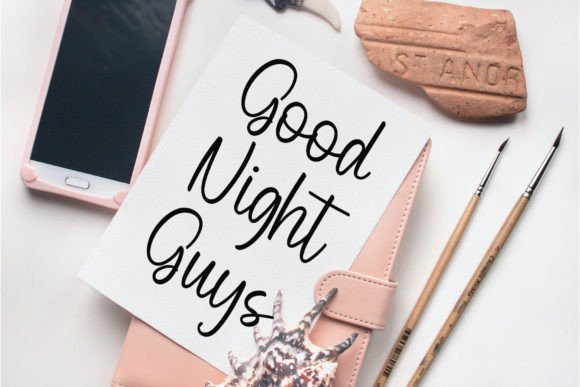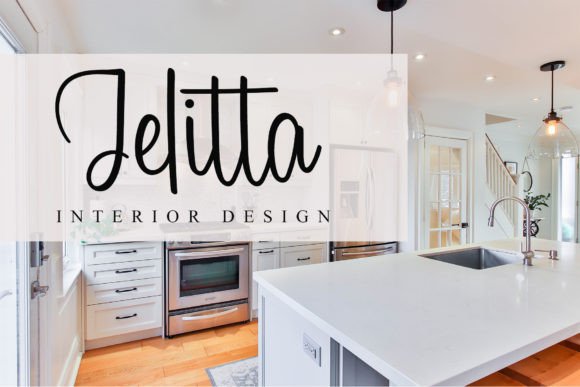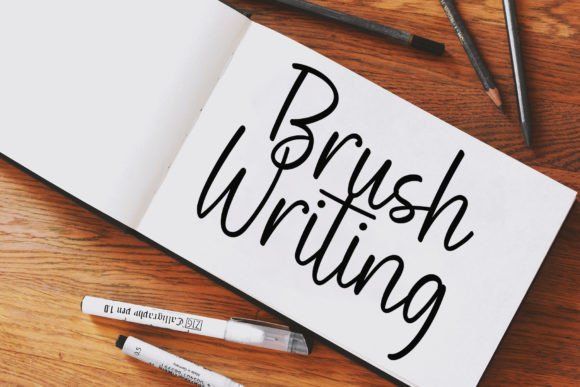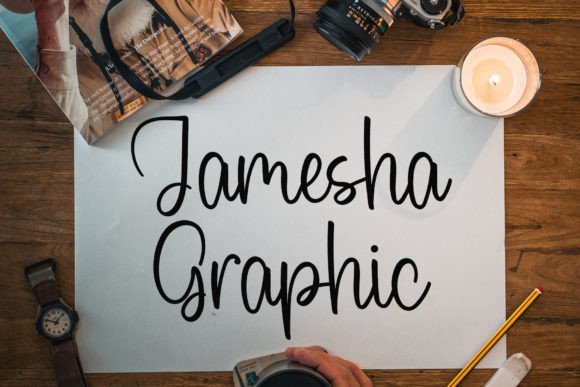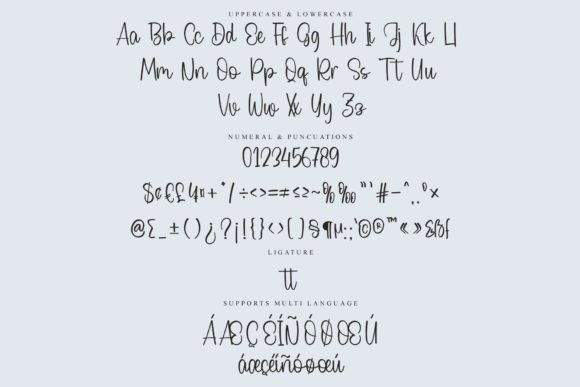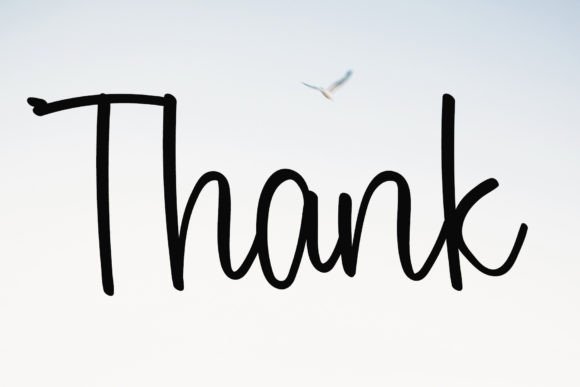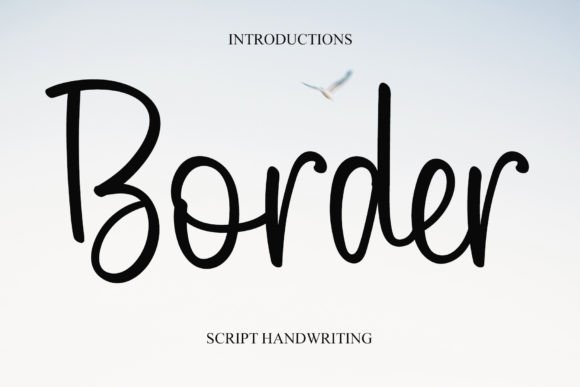
Introducing Border Font: Elevate Your Designs with Timeless Elegance
In the world of typography, a well-crafted font can make all the difference in transforming a design from ordinary to extraordinary. For designers and crafters seeking a stylish and sophisticated touch, Border Font is an exceptional choice. This beautiful handwritten font boasts a contemporary atmosphere, impeccable form, and a balanced, varied aesthetic that is sure to enhance the beauty of your projects.
The Inspiration Behind Border Font
Border Font draws inspiration from timeless classic calligraphy, bringing a sense of tradition and elegance to modern designs. The creator of this font carefully studied the art of classic calligraphy, understanding the nuances and subtleties that make it so captivating. By combining these classic elements with a modern twist, Border Font achieves a unique and stylish look that sets it apart from other fonts.
Key Features of Border Font
- Handwritten with a Personal Touch: Border Font is a handwritten font, which means it carries a personal and organic feel. This characteristic makes it perfect for designs that require a touch of warmth and authenticity.
- Contemporary Atmosphere: Despite its classic inspiration, Border Font has a distinctly contemporary feel. This makes it versatile and suitable for a wide range of design projects, from modern branding to traditional crafts.
- Impeccable Form: The font’s impeccable form ensures that it is not only beautiful but also highly legible. This balance between aesthetics and functionality is crucial for effective design.
- Balanced and Varied: Border Font offers a balanced and varied aesthetic, which means it can be used in a variety of contexts without becoming monotonous. Its variations keep the text interesting and engaging.
Use Cases for Border Font
Border Font’s versatility makes it suitable for a myriad of design projects. Here are some use cases where this font truly shines:
- Branding and Logotypes: For businesses looking to establish a sophisticated and elegant brand identity, Border Font can be a valuable asset. Its unique style can help create memorable logos and brand names.
- Stationery and Invitations: Whether you’re designing wedding invitations, business cards, or letterheads, Border Font adds a touch of class and refinement. Its classic yet modern appeal ensures that your stationery stands out.
- Packaging Design: For product packaging that requires a stylish and contemporary look, Border Font can be effectively used for labels, product names, and descriptions, enhancing the overall aesthetic of the packaging.
- Digital and Print Media: From website headers to magazine articles, and from social media graphics to print advertisements, Border Font can elevate your digital and print media with its elegant and modern appearance.
- Crafting and DIY Projects: Crafters and DIY enthusiasts will find Border Font to be a great addition to their creative projects. Use it for titles, quotes, or any textual element in your handmade crafts, journals, or art pieces.
Tips for Using Border Font Effectively
To make the most of Border Font, consider the following tips:
- Pair with Complementary Fonts: While Border Font is beautiful on its own, pairing it with complementary fonts can enhance its impact. Choose fonts that contrast well but still align with the overall design theme.
- Adjust Letter Spacing: For optimal readability and aesthetics, adjust the letter spacing according to the context. This is particularly important for larger texts or headings.
- Utilize Variations: Take advantage of the font’s variations to add depth and interest to your text. This can prevent the design from becoming monotonous and keep the reader engaged.
Border Font is a stylish and versatile typeface that brings a touch of timeless elegance to any design project. Its inspiration from classic calligraphy, combined with a modern and balanced aesthetic, makes it an excellent choice for designers and crafters alike. Whether you’re working on branding, stationery, packaging, or crafting, Border Font is sure to enhance the beauty and impact of your projects.